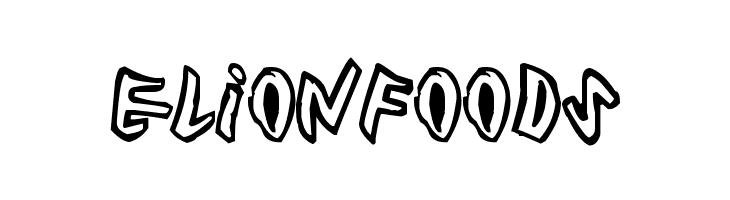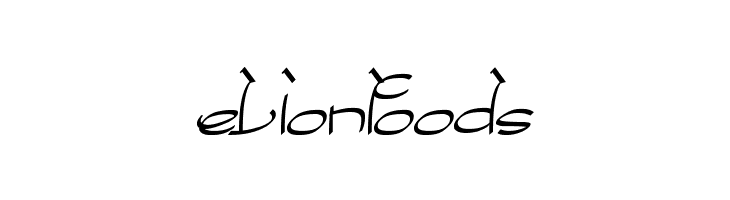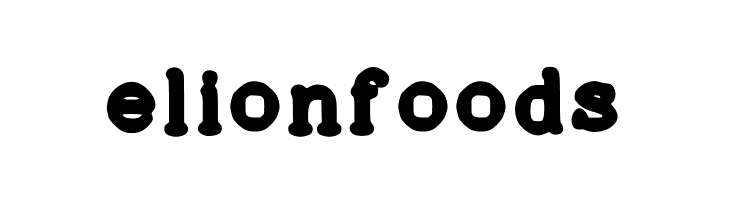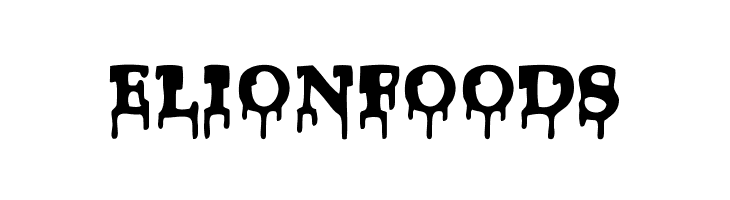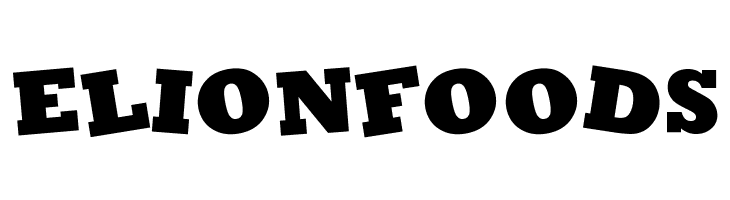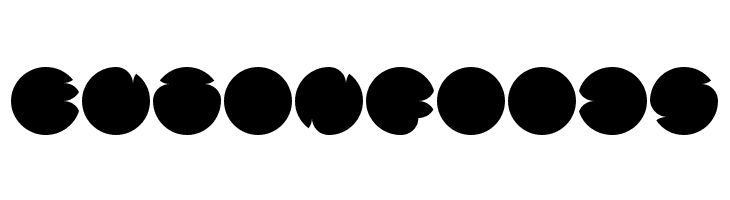
A bold, rounded font with a playful and friendly style.
A sharp, angular font with a tribal and modern aesthetic.
A bold, dripping font perfect for horror or dramatic themes.
A bold, dripping effect font with a unique, edgy style.
A bold, graffiti-inspired font with a playful and edgy style.
A bold, playful font with circular, cut-out designs ideal for creative projects.